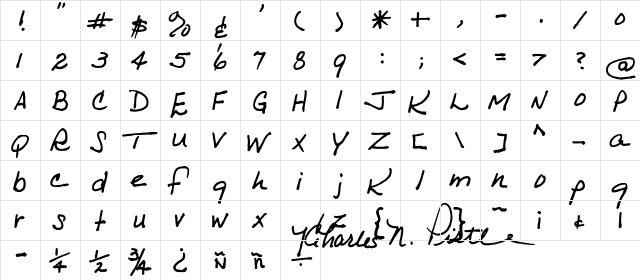
FG Mats Regular
Design Context for FG Mats Typeface
FG Mats takes a measured approach to typography — its balanced proportions and neutral character make it a reliable workhorse for both digital and print work.